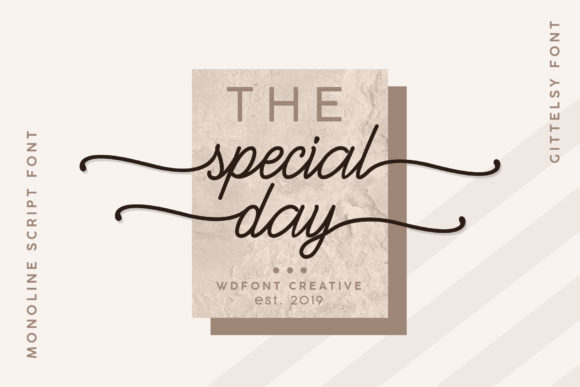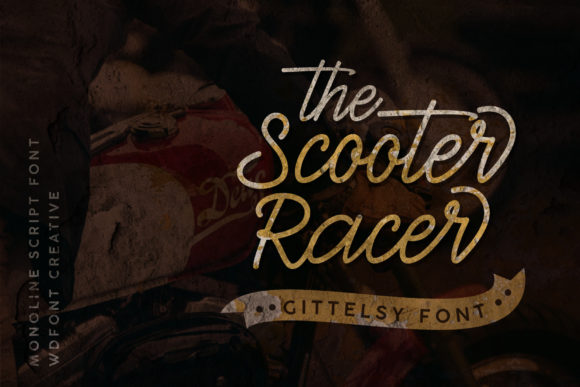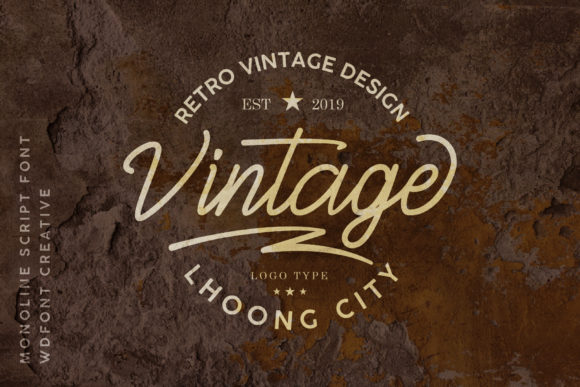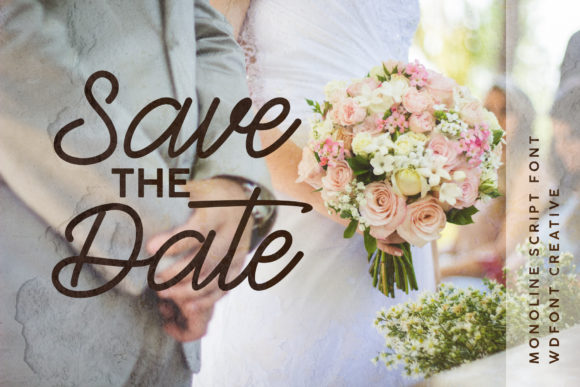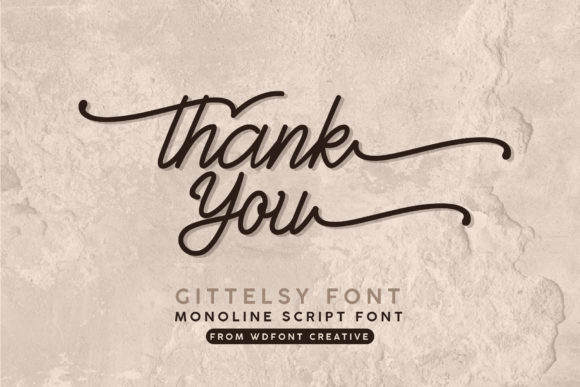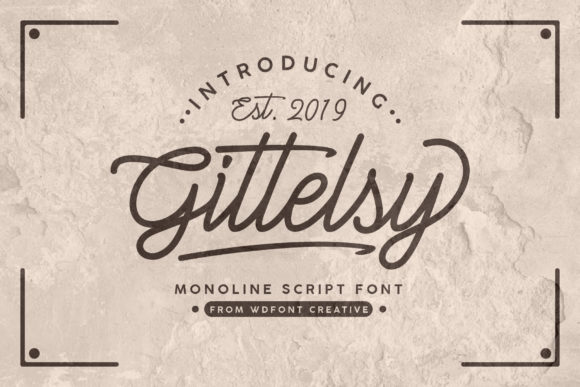
Gittelsy Font: Elevate Your Designs with a Retro Twist
Are you on the hunt for a font that adds a touch of nostalgia and personality to your design projects? Look no further than Gittelsy, a one-of-a-kind handwritten font that’s sure to captivate your audience. With its bold charm and retro vibe, Gittelsy is the perfect addition to any designer’s toolkit.
The Story Behind Gittelsy
Gittelsy is more than just a font – it’s a statement piece. Its unique, authentic handwritten style is reminiscent of a bygone era, evoking feelings of warmth and familiarity. This font is perfect for designers who want to add a personal touch to their work, whether it’s a branding project, a craft, or a digital design.
What Makes Gittelsy Special?
- Unique and Authentic: Gittelsy’s handwritten style is truly one-of-a-kind, making it stand out from more generic fonts.
- Retro Vibe: The font’s nostalgic feel is perfect for designers who want to add a touch of vintage charm to their work.
- Bold Charm: Gittelsy is not subtle – it’s a statement piece that demands attention.
- Versatile: Whether you’re working on a digital design, a craft project, or a branding campaign, Gittelsy is the perfect fit.
How to Use Gittelsy in Your Designs
One of the best things about Gittelsy is its versatility. Here are a few ideas to get you started:
- Branding: Use Gittelsy as a logo font or incorporate it into your brand’s typography to add a touch of personality.
- Digital Design: Add Gittelsy to your website, social media graphics, or email templates to make your digital presence more engaging.
- Crafts: Gittelsy is perfect for crafters who want to add a personal touch to their projects, whether it’s a handmade card, a scrapbook, or a DIY gift.
Tips for Pairing Gittelsy with Other Fonts
While Gittelsy is stunning on its own, it can also be paired with other fonts to create a unique and visually appealing design. Here are a few tips:
- Contrast: Pair Gittelsy with a clean, sans-serif font to create contrast and make your design stand out.
- Complementary: Choose a font that complements Gittelsy’s retro vibe, such as a vintage-inspired serif font.
- Hierarchy: Use Gittelsy as a headline font and pair it with a simpler font for body text to create a clear hierarchy.
Gittelsy is a game-changer for designers and crafters who want to add a touch of personality and nostalgia to their work. With its unique, authentic handwritten style and retro vibe, this font is sure to inspire any design project. Whether you’re working on a branding campaign, a digital design, or a craft project, Gittelsy is the perfect addition to your toolkit.